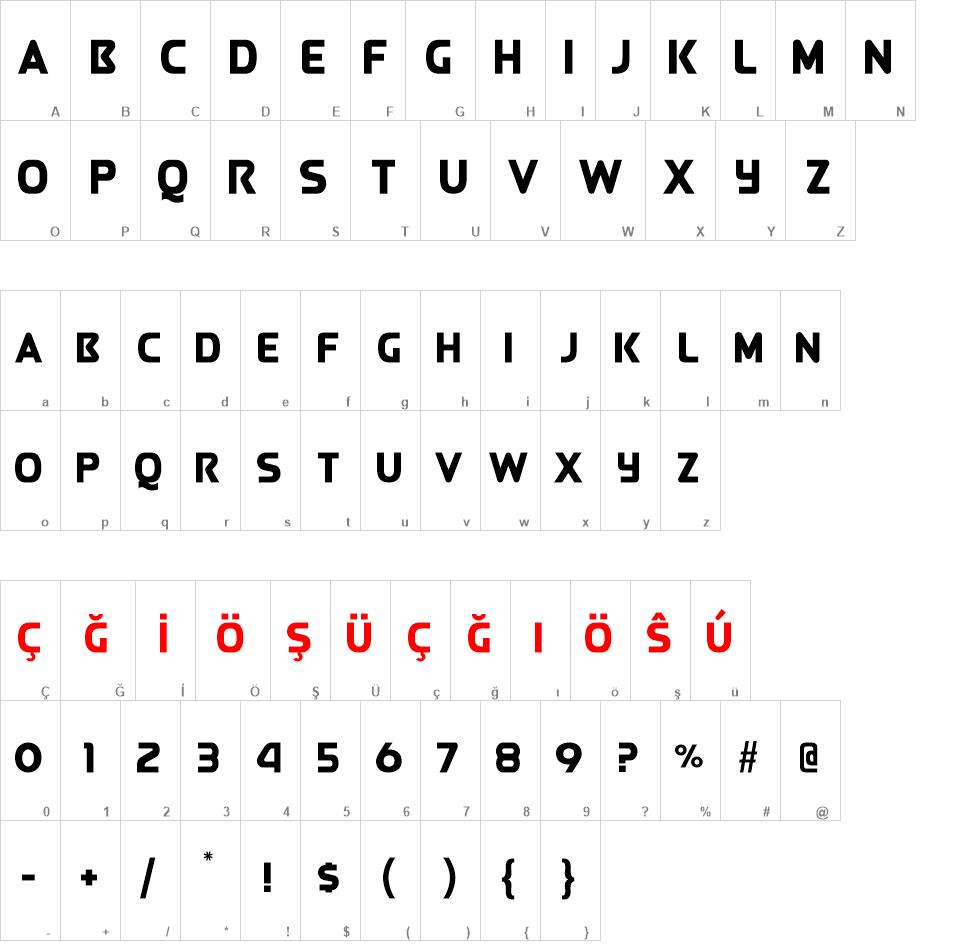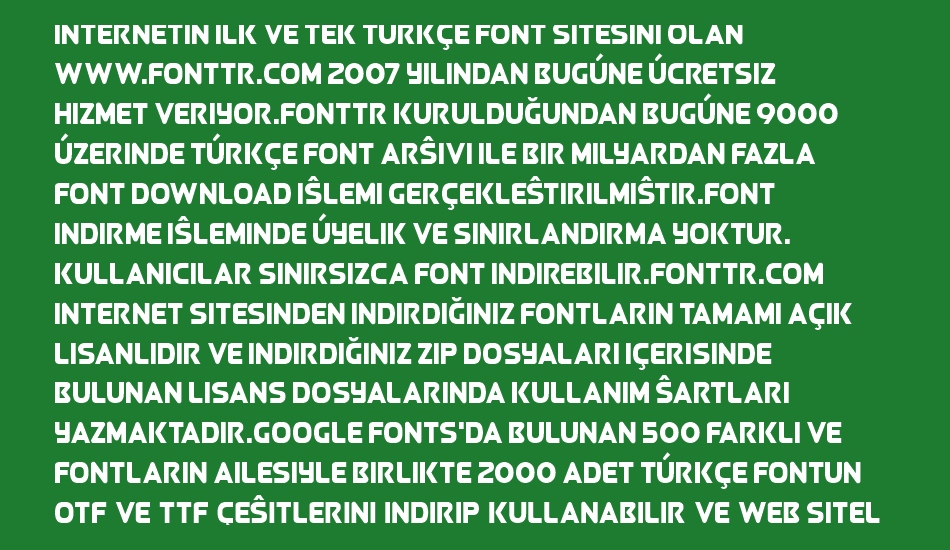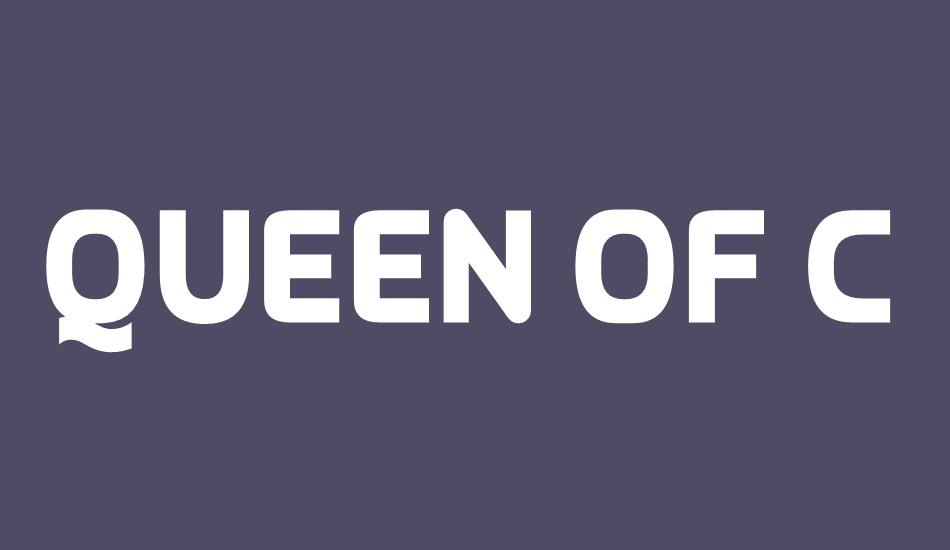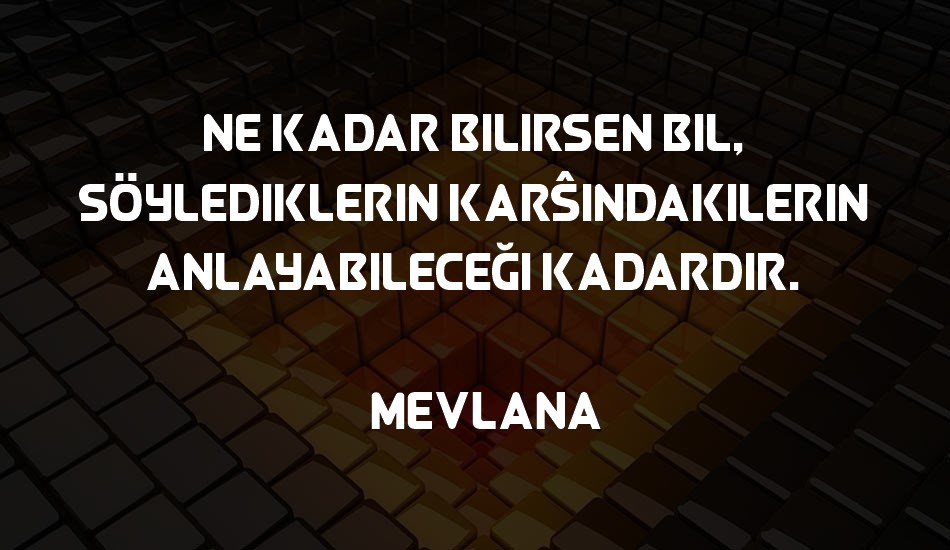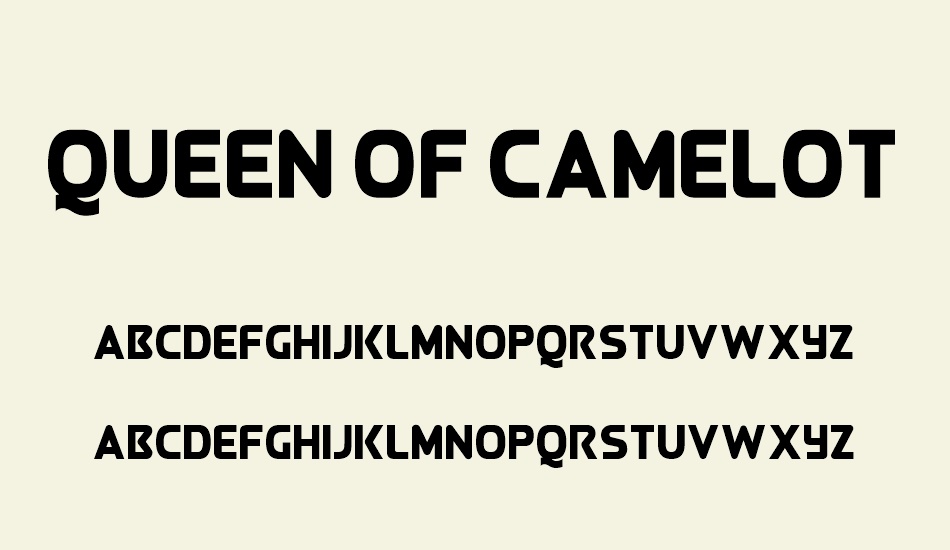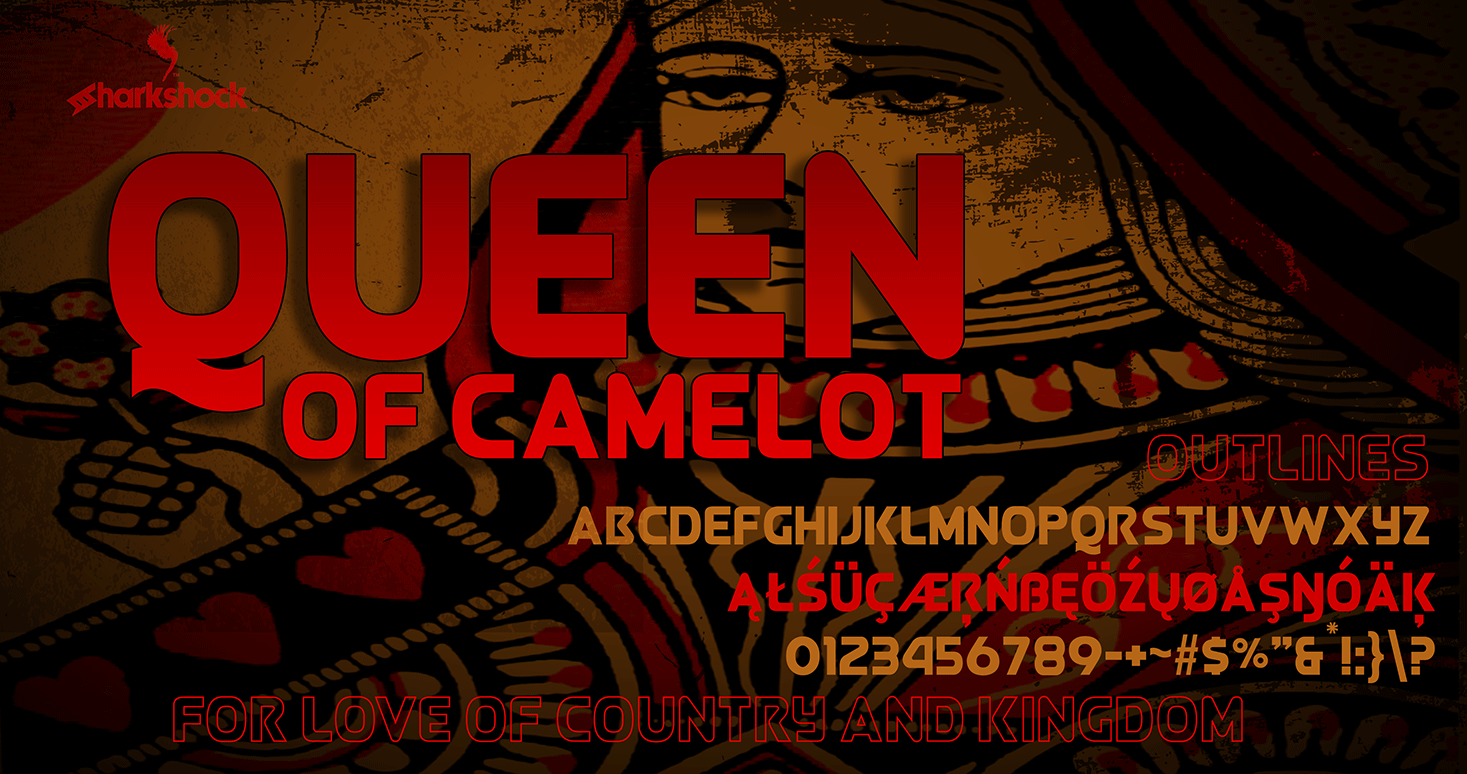
Queen of Camelot font
Font: Queen of Camelot (Regular and Italic)
Long Live the Queen! Greetings subjects. This is an update of an older display font project containing more visually appealing glyphs with proportionate weights and kerning added. There is a smooth feel with the rounded joins that has a consistent presence throughout it's entirety. This typeface
has been a popular choice in publications, branding, and sports. Punctuation is included as is basic latin, some ligatures, and diacritics for Poland and Eastern Europe. Extended latin can be added upon purchase of a commercial license. Contact me for more info on this. There are uppercase
letters only.